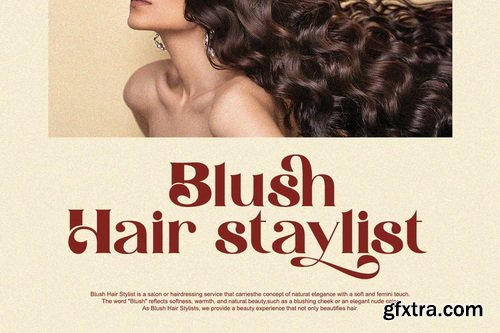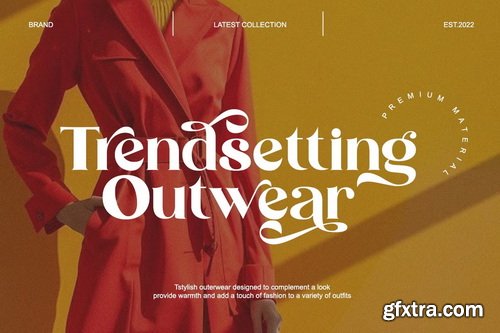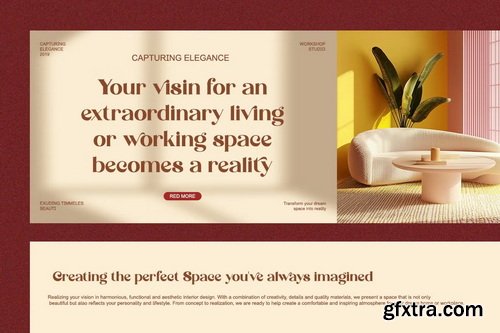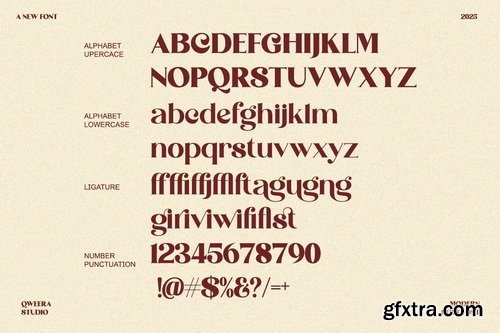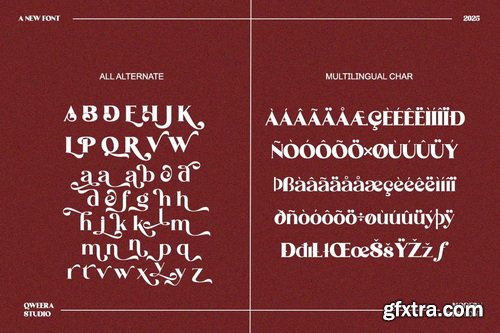
Hogie Angelo is more than just a font – it's a masterfully crafted classic serif typeface that exudes timeless elegance and sophistication. Featuring both regular and italic versions with exquisite alternates and ligatures, this font brings a touch of refined luxury to all your creative projects. Hogie Angelo combines traditional serif beauty with contemporary design flexibility. Its graceful letterforms and carefully designed alternates make it perfect for creating distinguished branding, luxury logos, premium packaging, and high-end editorial designs that stand the test of time.